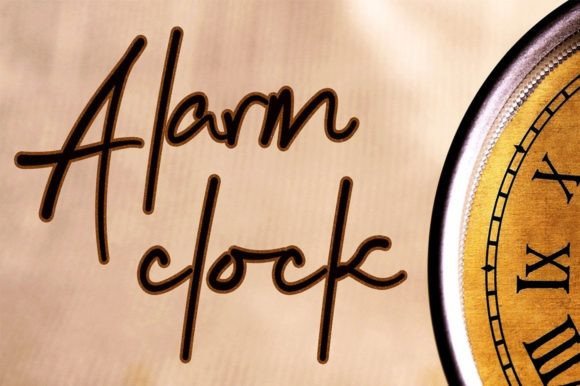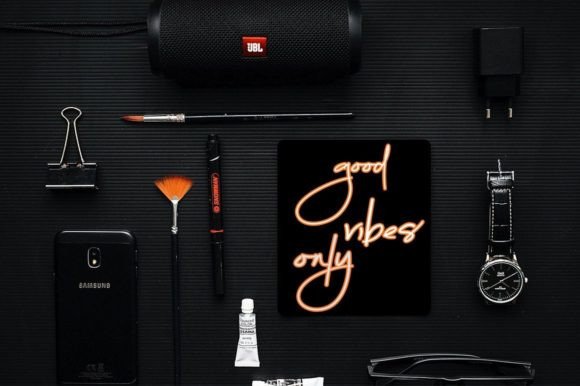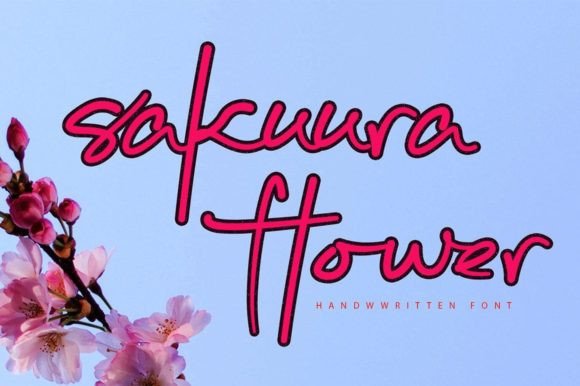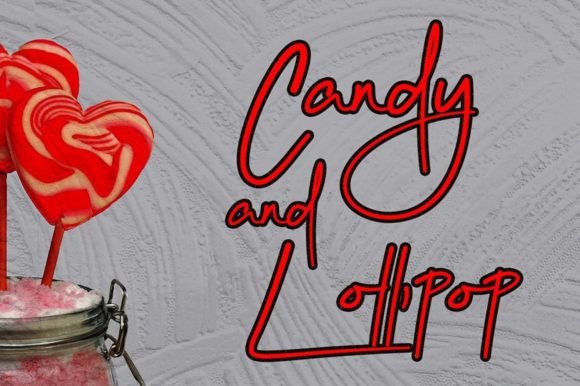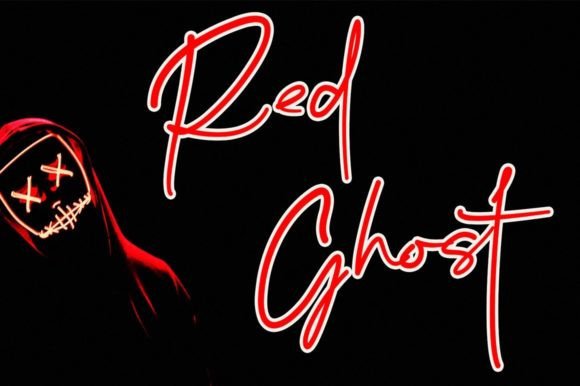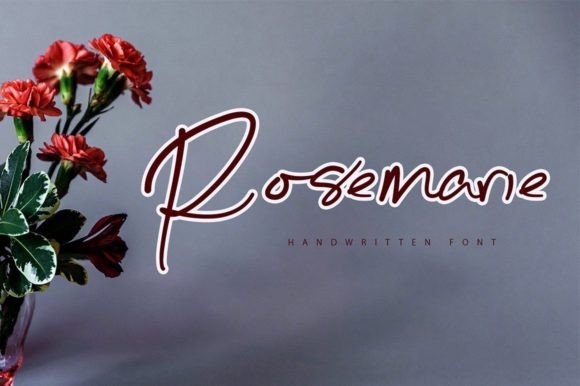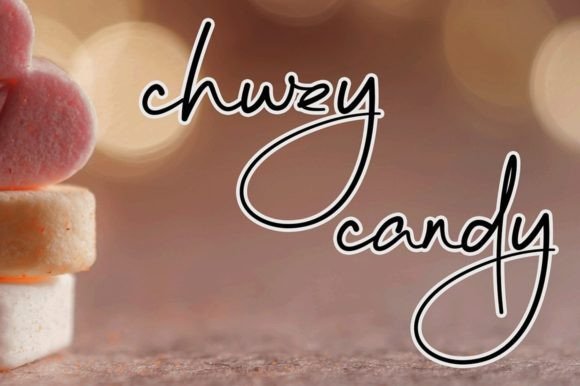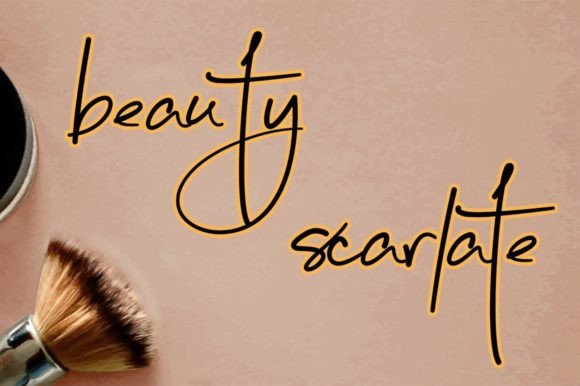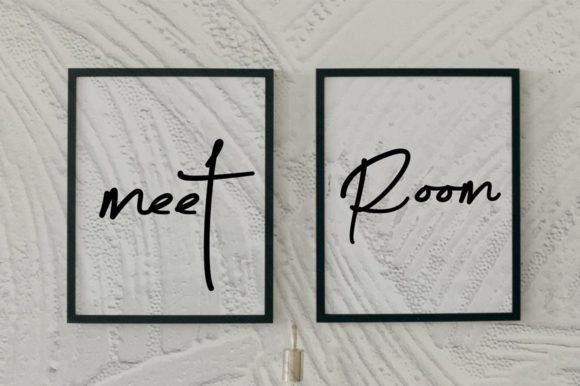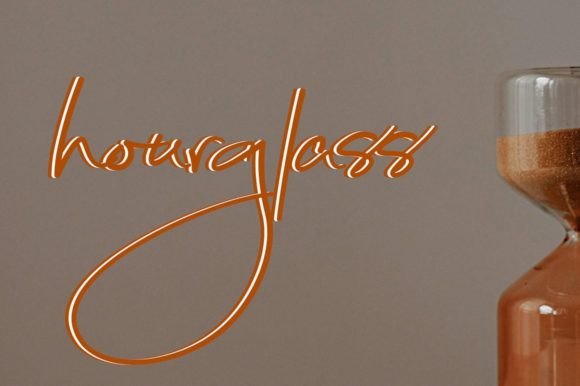
Alarm Clock Font
About Alarm Clock Font
“Alarm Clock” is an enchanting handwritten font that exudes charm and elegance. Its versatile script style makes it suitable for a wide array of applications, from greeting cards to headlines, and promises to infuse a romantic feel into your next project.
The font’s enchanting appeal lies in its flowing letterforms and graceful strokes, which create a captivating and romantic atmosphere. Whether you’re designing greeting cards, wedding invitations, posters, social media graphics, or any other project that requires a touch of romance, “Alarm Clock” adds a sense of magic and sophistication.
One of the strengths of “Alarm Clock” is its adaptability. Its versatile nature allows it to seamlessly transition between different design contexts, enhancing the overall visual appeal of your projects. The font’s romantic feel makes it perfect for expressing love, emotions, and sentiments, making it an ideal choice for projects related to weddings, engagements, anniversaries, and other special occasions.
The font’s handwritten charm adds a personal touch to your designs, making them more engaging and relatable to viewers. Its enchanting aura captures attention and creates a memorable impression. Whether you’re aiming for a vintage-inspired look or a modern romantic vibe, “Alarm Clock” can be customized to suit your design preferences, ensuring that your projects stand out with a touch of romance and elegance.
By incorporating “Alarm Clock” into your next project, you’re inviting your audience into a world of enchantment and romance. Whether you’re a designer, a creative enthusiast, or someone planning a special event, this font allows you to evoke emotions and create a captivating atmosphere. Let “Alarm Clock” be the key to adding a romantic and enchanting feel to your designs, making them truly unforgettable and meaningful to those who experience them.